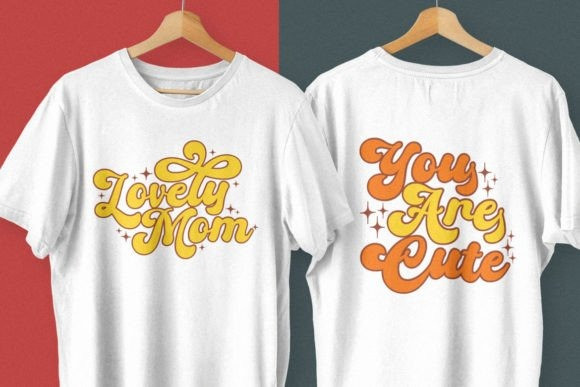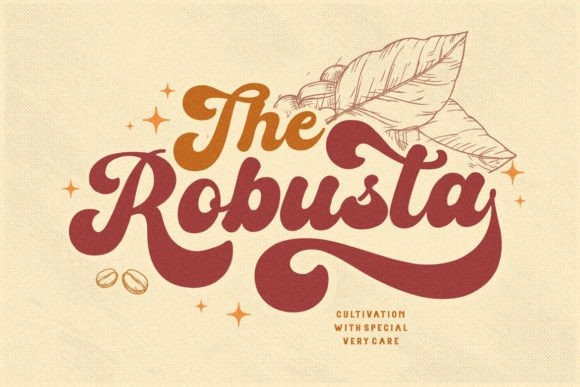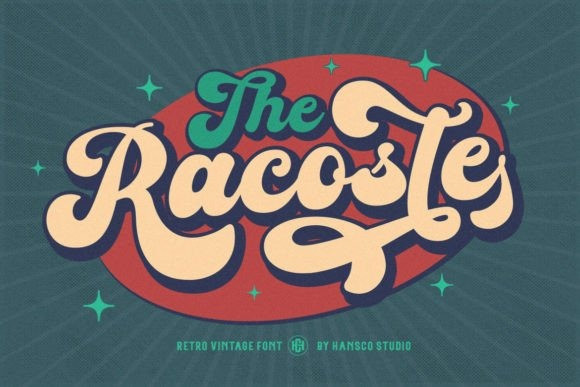
Racoste Font
Racoste Font is a retro vintage lettering font. You will get alternate characters such as swash on some characters. Use this display font to add that special retro touch to any design idea you can think of! Masterfully designed to become a true favorite, this font has the potential to bring each of your creative ideas to the highest level!
Very suitable for logotype, Stickers, Packaging design, Cricut Projects, headlines, brand identity, t-shirt or apparel industry, posters, magazines, books, YouTube, Canva, Instagram, websites, or any of your creative design projects.